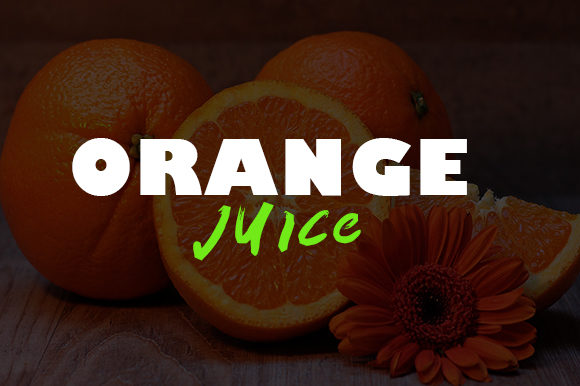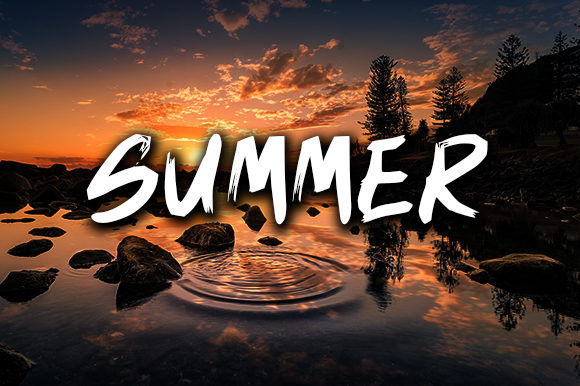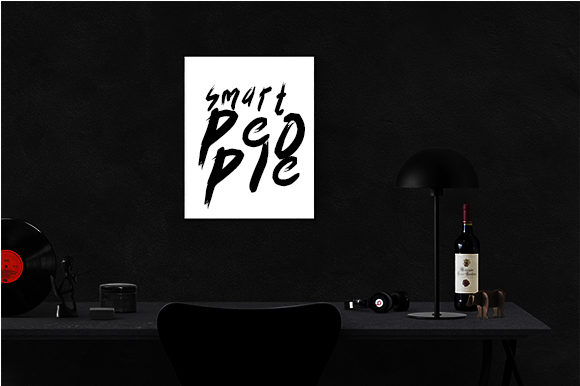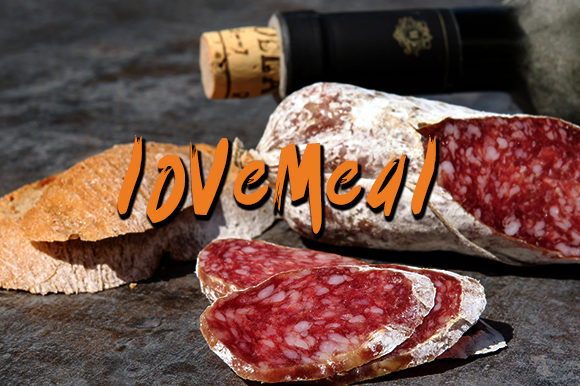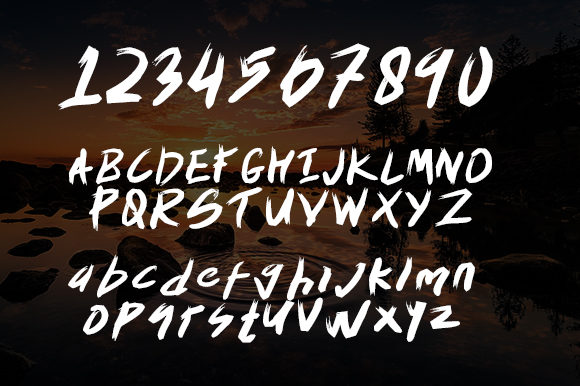
HomeScript FontsDamies Font Script Fonts Damies Font FacebookXPinterestWhatsApp Damies Font Poster 2 Damies Font Poster 3 Damies Font Poster 4 Damies Font Poster 5 Damies Font Poster 6 Damies Font Poster 7 About Damies Font Damies is a fun and bold handwritten font with an incredible charm. Get inspired by its authentic vibe! DOWNLOAD ON CREATIVE FABRICAThis font is sold and delivered by Creative Fabrica. Font Canyon may earn a commission if you buy through this link. People also explored Madona Font Fresh Wumpa Font Journey Font Chanilly Font Valentine Planner Hinatta Font Valentine Font Bistro Font Emitensy Script Font 299 0 TagsDamies Font Previous articleSuntre FontNext articleBungkret Font LEAVE A REPLY Cancel reply Comment: Please enter your comment! Name:* Please enter your name here Email:* You have entered an incorrect email address! Please enter your email address here Website: Save my name, email, and website in this browser for the next time I comment. Personal Use Free Lovetle Personal Use Free Read more about this font Monogram Veg Personal Use Free Read more about this font Expaing Personal Use Free Read more about this font Strasua Personal Use Free Read more about this font BLOG Transform Your Website: Elevate Your Typography with 7 Best Web Font Generators Are you ready to transform your website's typography from ordinary to extraordinary? Great! Today, we're diving into the world of web font generators, which... Fonts That Capture the Spirit of New York City The 10 Best Handwriting Fonts to Add Personality to Your Designs How to Cut Any Font on Cricut: Convert a Font to SVG (Free)